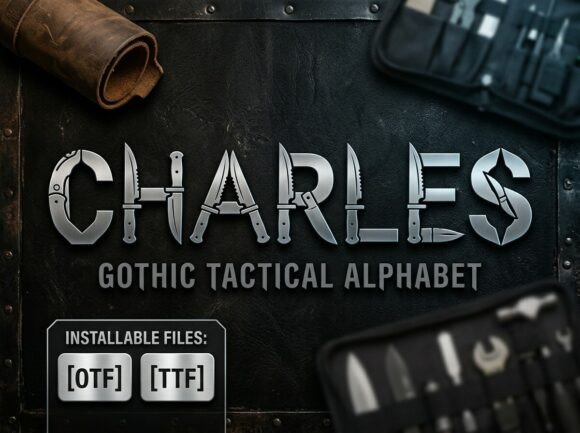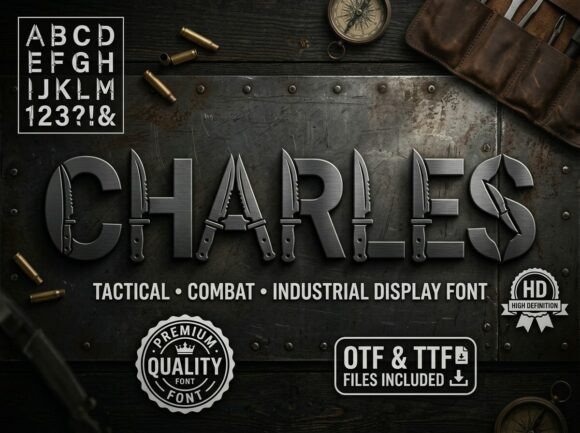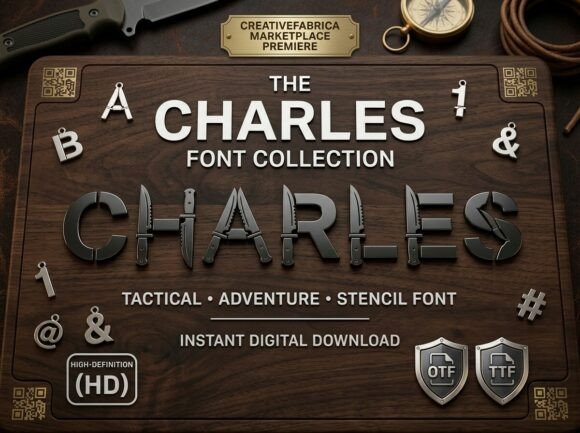
Unleash Your Brand’s Inner Strength with Charles Font
In the world of design, a font can make or break a brand’s visual identity. For those looking to convey a sense of survival, precision, and a modern “action-ready” aesthetic, Charles font is the ultimate game-changer. This tactical display font is specifically designed for high-impact edges, making it perfect for brands that want to leave a lasting impression.
The Inspiration Behind Charles Font
Every character in Charles font is meticulously crafted using the anatomy of survival knives, tactical blades, and folding grips. This unique approach gives the font a rugged, metallic-inspired skeleton that exudes strength and resilience. The designer aimed to create a font that not only looks aggressive but also professional, making it suitable for a wide range of applications.
Key Features of Charles Font
- Aggressive yet Professional: Charles font balances sharp, aggressive terminals with a heavy-duty visual weight, making it perfect for brands that want to communicate a sense of survival and precision.
- Metallic-Inspired Skeleton: The font’s sturdy skeleton is inspired by metallic materials, giving it a robust and industrial look.
- High-Impact Edges: Charles font is designed to make a statement, with sharp edges that grab attention and leave a lasting impression.
Best Use Cases for Charles Font
Charles font is incredibly versatile, making it suitable for a wide range of applications. Here are some of the best use cases for this powerful font:
- Survivalist Branding: For brands that want to convey a sense of survival and resilience, Charles font is the perfect choice.
- Tactical Gear Packaging: The font’s tactical inspiration makes it a natural fit for packaging design in the tactical gear industry.
- Action Movie Titles: Charles font is perfect for creating bold, attention-grabbing titles for action movies.
- Esports Logos: The font’s modern, aggressive aesthetic makes it a great fit for esports logos that want to convey a sense of strength and competition.
- Outdoor Knife Shop Identities: For outdoor knife shops that want to convey a sense of ruggedness and reliability, Charles font is an excellent choice.
Why Choose Charles Font?
In a crowded market, it’s essential to stand out from the competition. Charles font offers a unique combination of aggression and professionalism, making it an excellent choice for brands that want to leave a lasting impression. Here are some reasons why designers and crafters should choose Charles font:
- Unique Aesthetic: Charles font offers a fresh, modern aesthetic that’s unlike anything else on the market.
- High-Quality Design: Every character is meticulously crafted to ensure a high level of quality and attention to detail.
- Versatility: The font is incredibly versatile, making it suitable for a wide range of applications and industries.
| Font Name | Charles Font |
| Author | Raholco |
Charles font is a game-changer for designers and crafters looking to create a strong visual identity for their brand. With its unique blend of aggression and professionalism, this tactical display font is perfect for brands that want to convey a sense of survival, precision, and a modern “action-ready” aesthetic. Whether you’re working on survivalist branding, tactical gear packaging, action movie titles, esports logos, or outdoor knife shop identities, Charles font is an excellent choice.